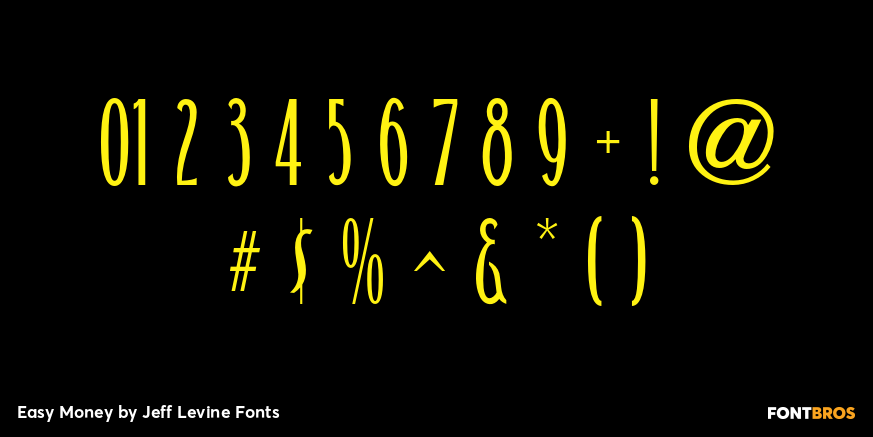
Easy Money
The 1920s Art Nouveau movement spawned a number of beautiful hand lettered pieces of sheet music from that era.
Attractive and narrow, the characters found on the title page of one such piece of music was the inspiration for Easy Money JNL.